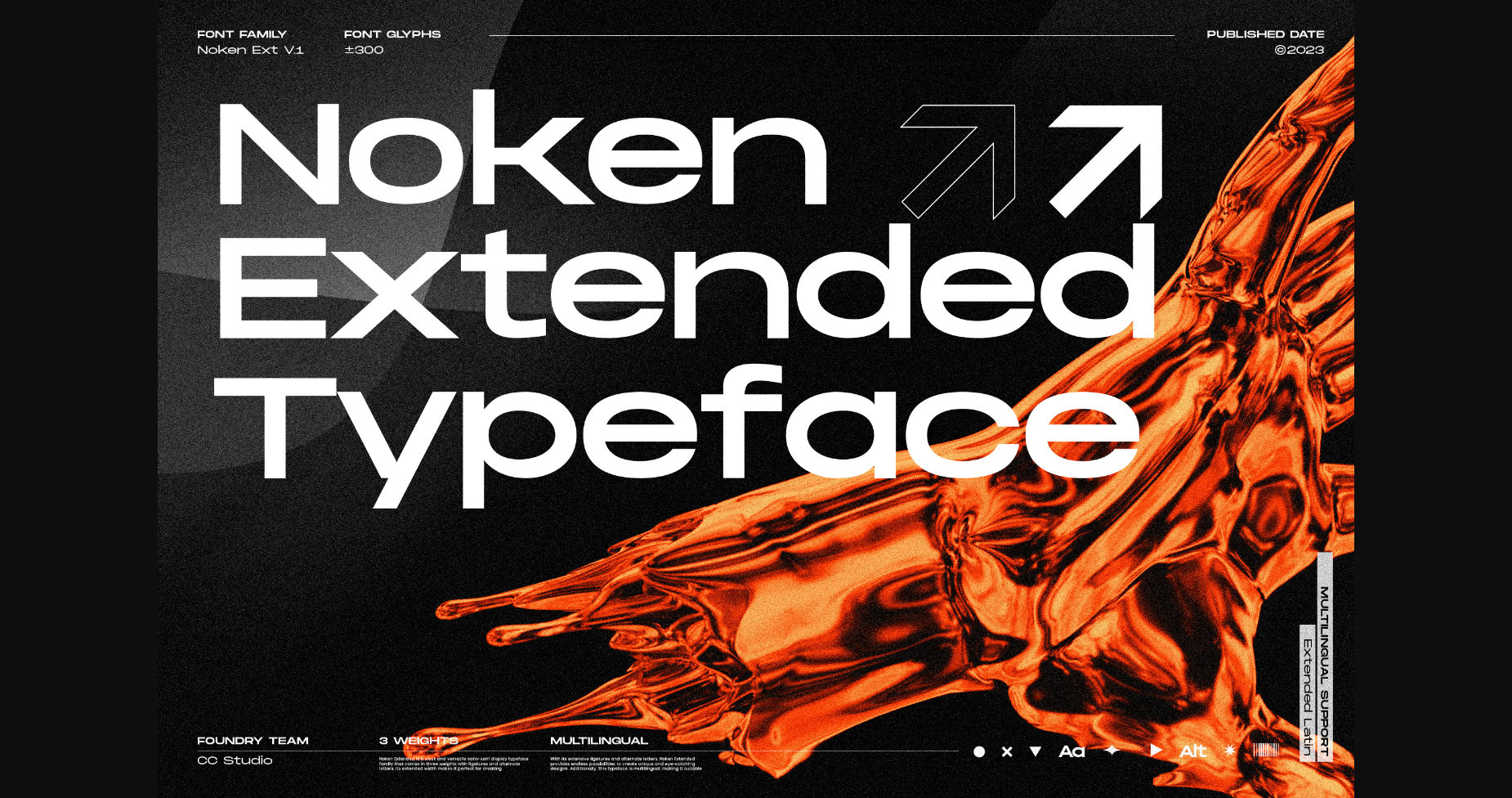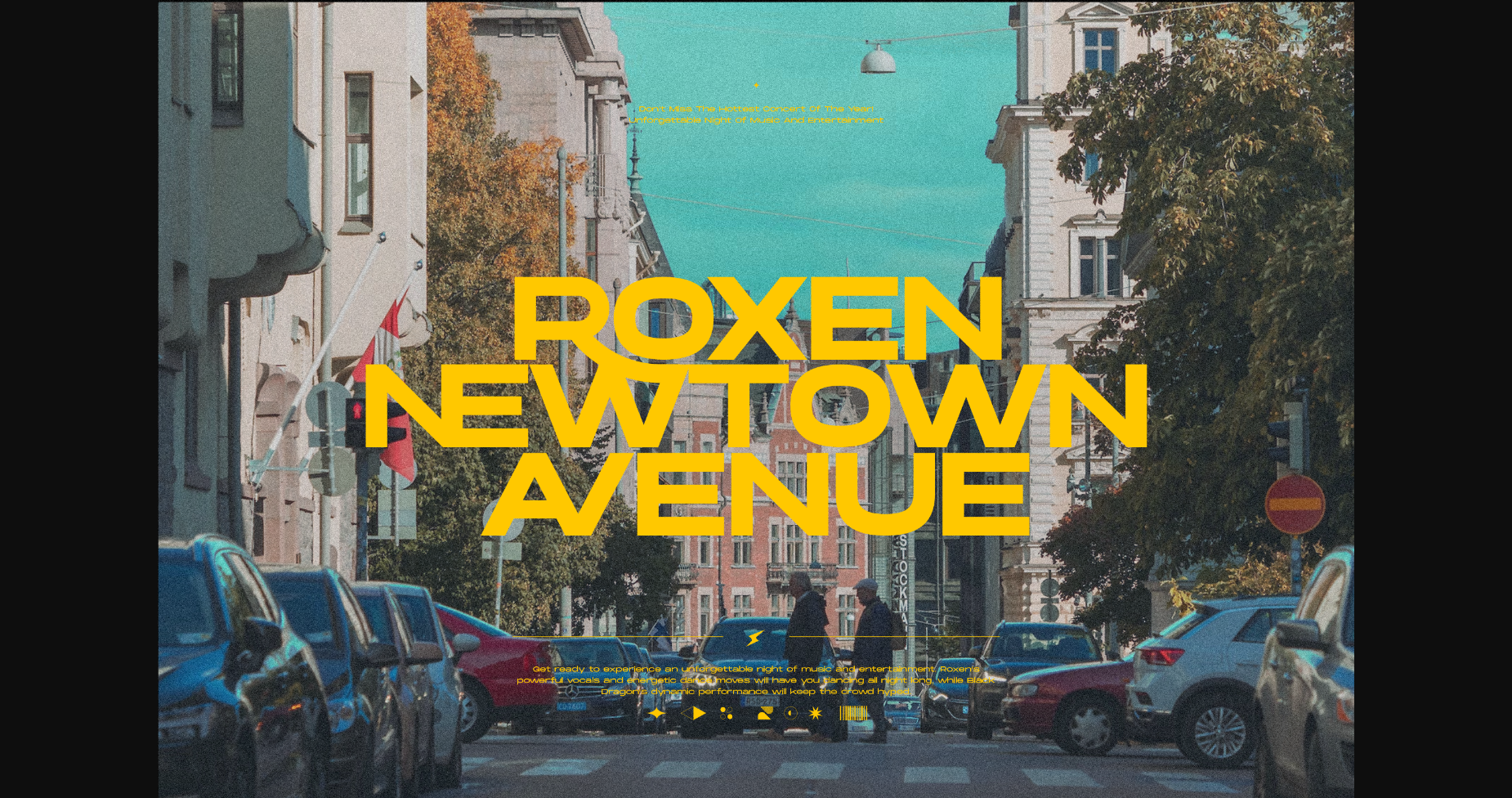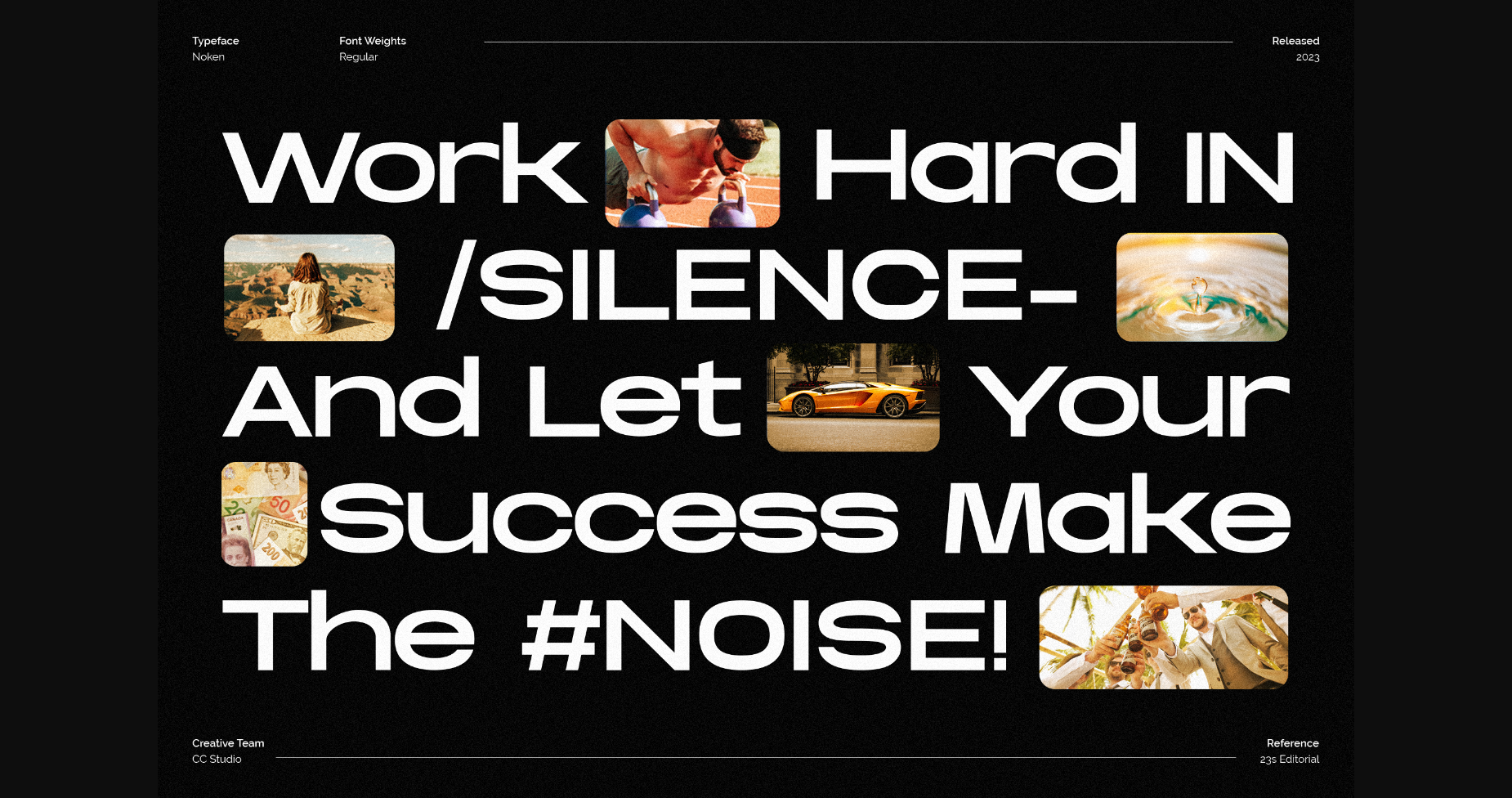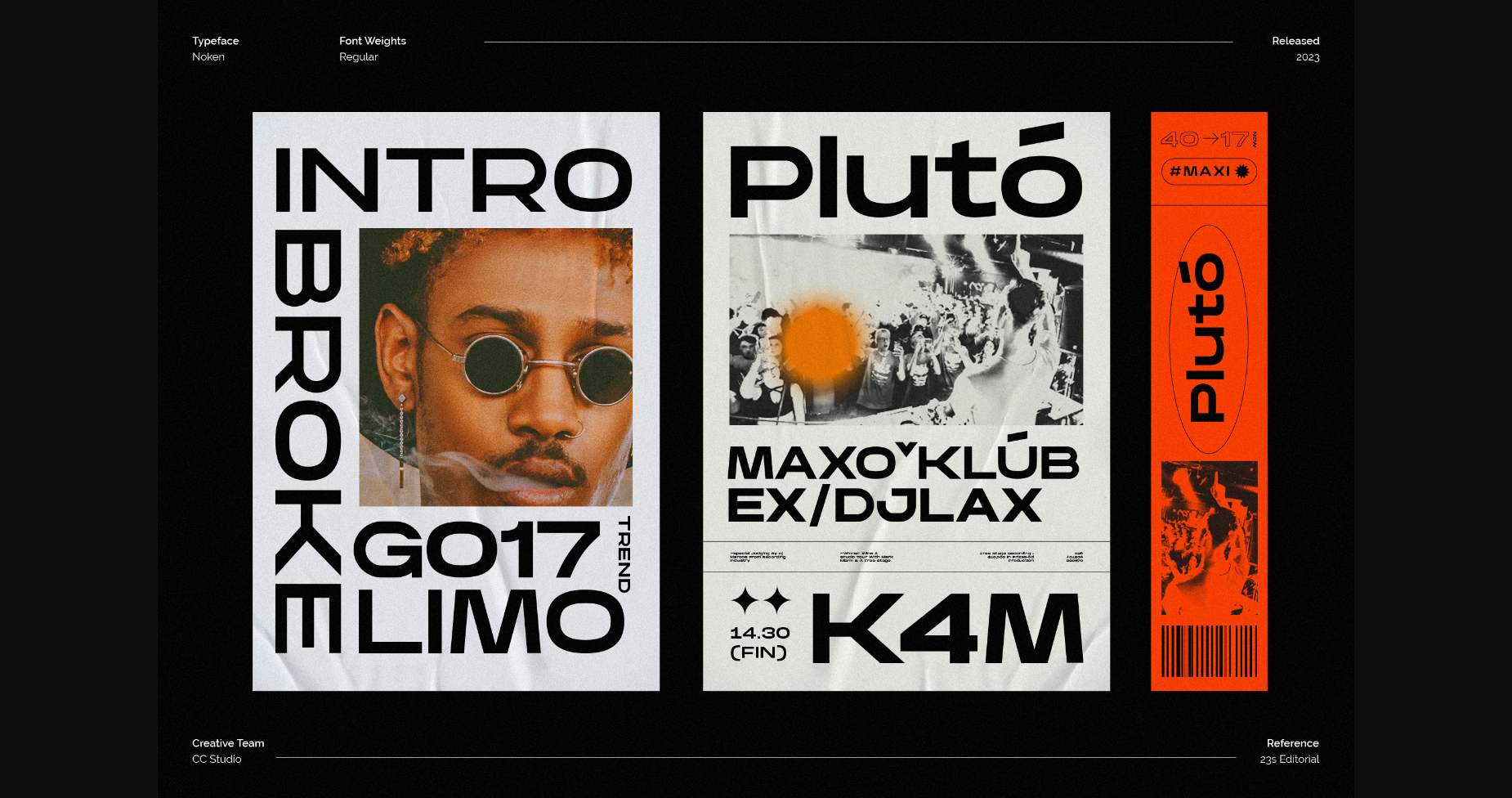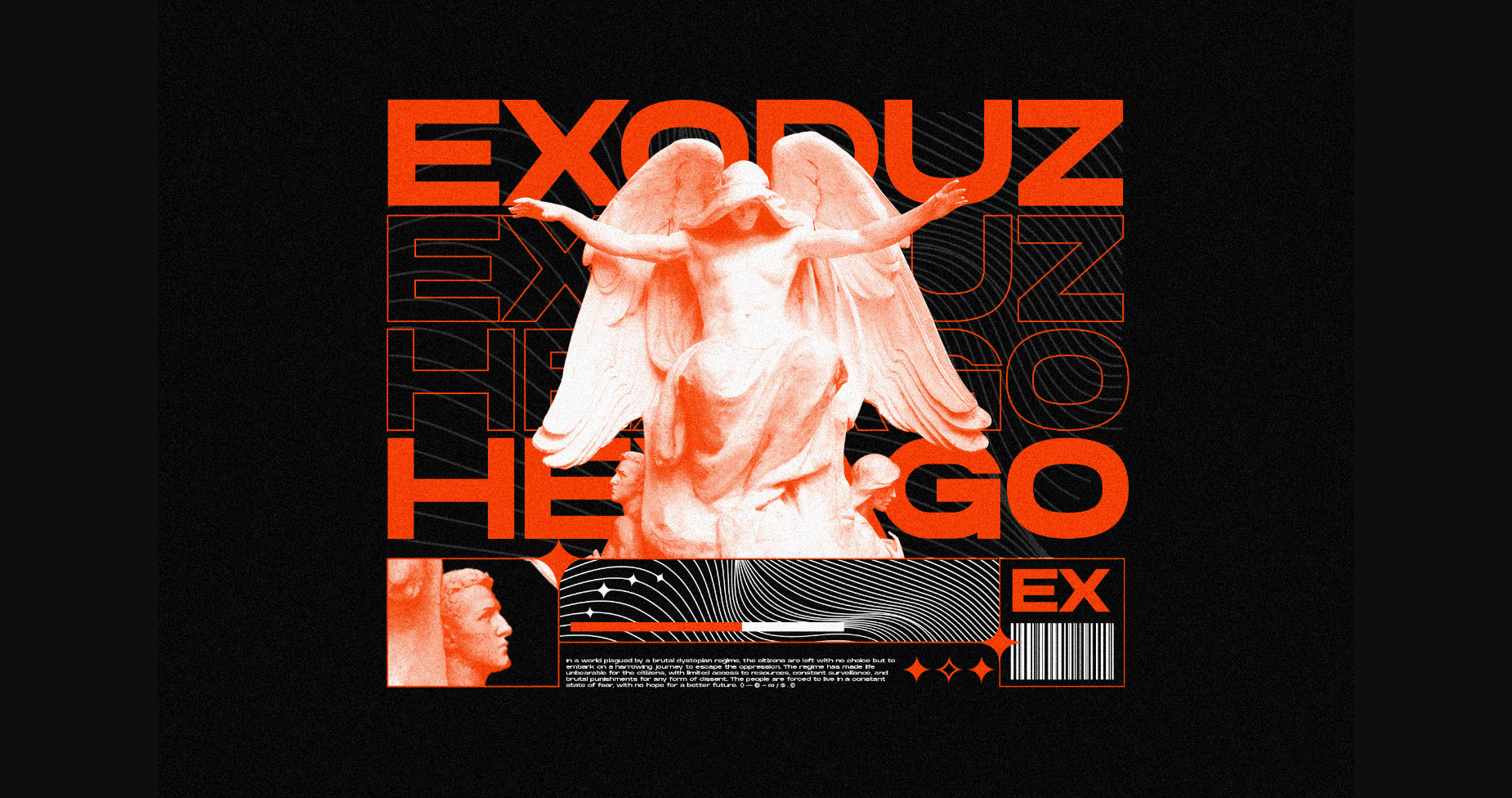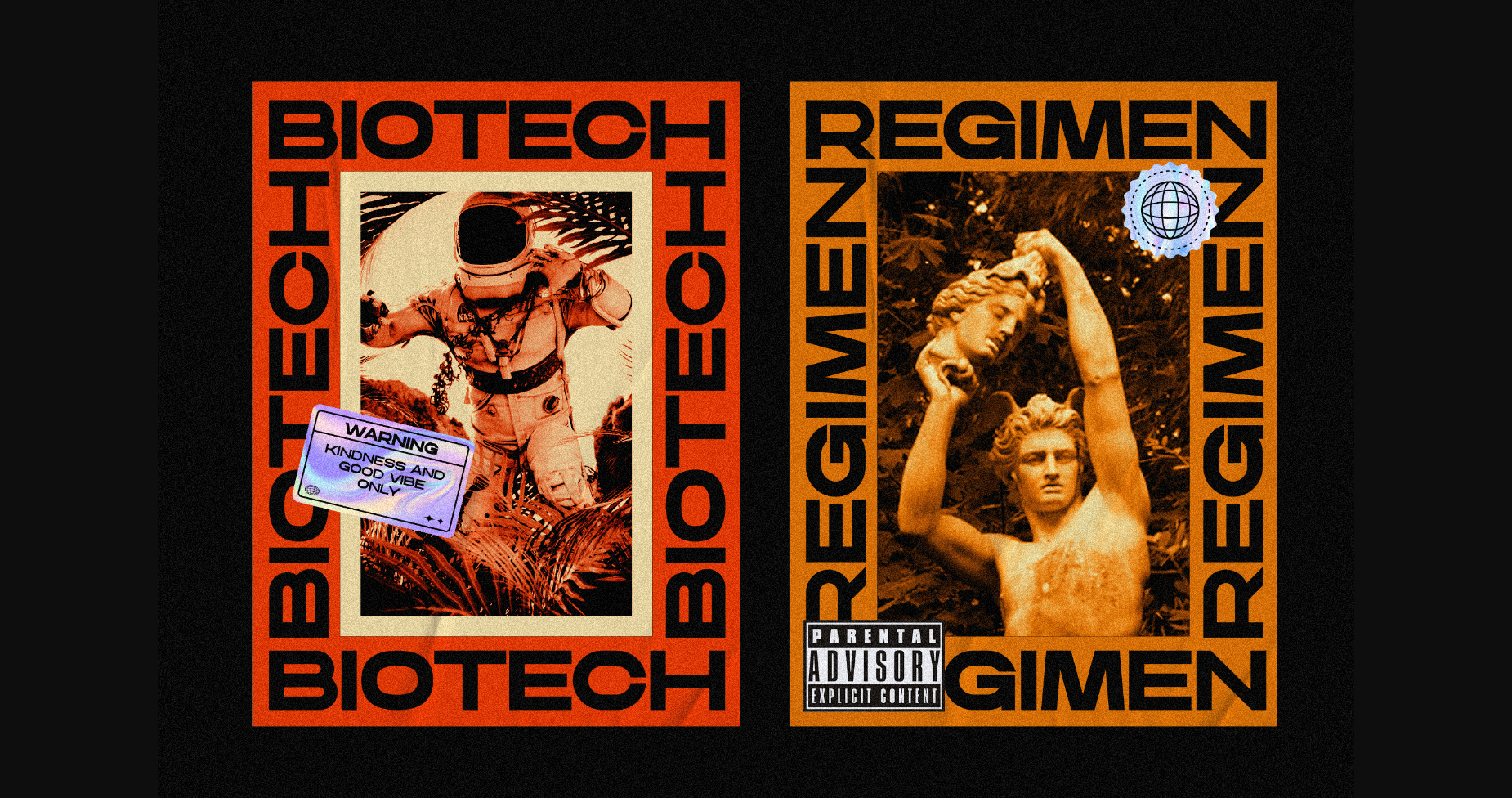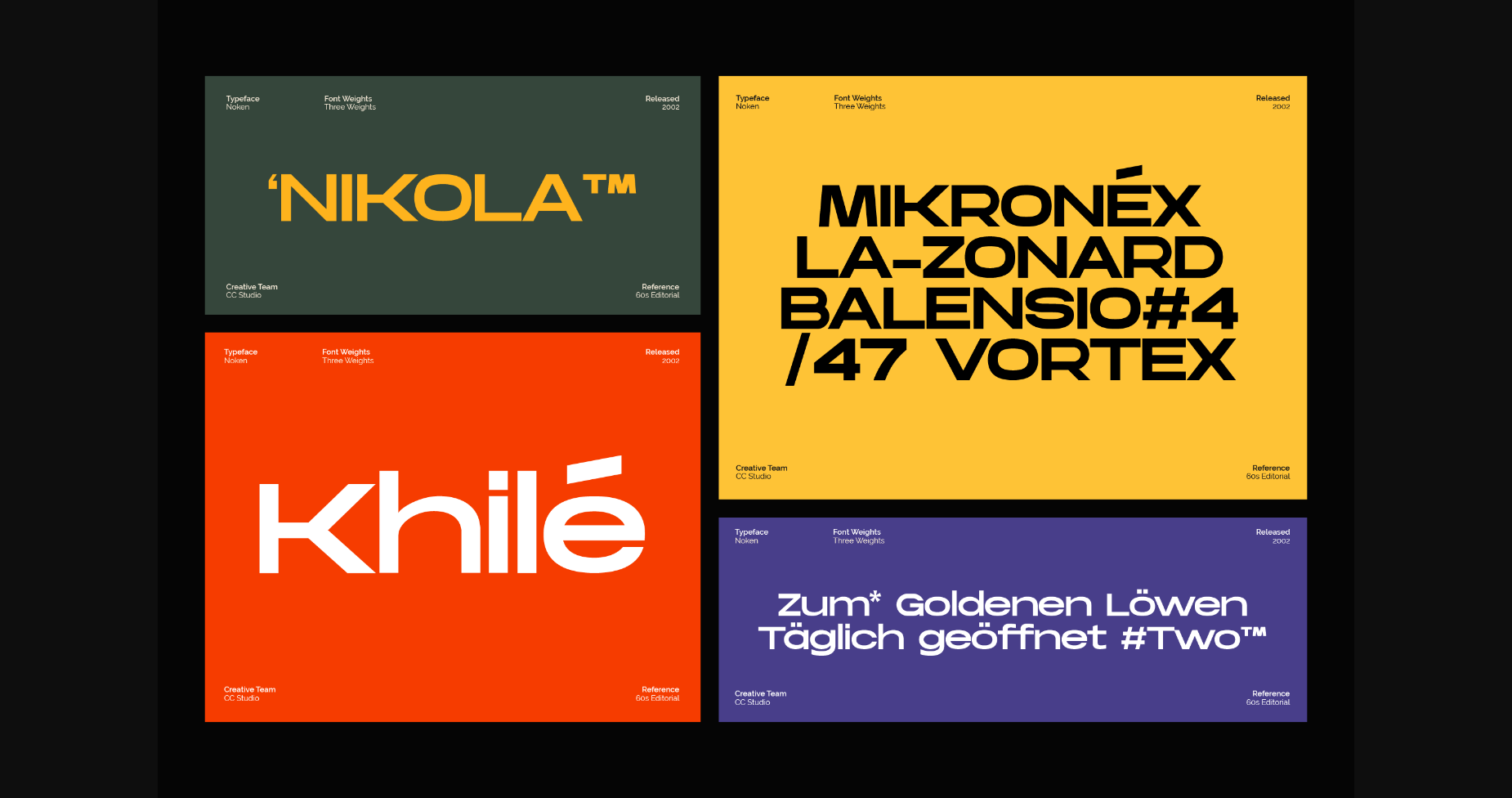
About Noken Extended Font
Noken Extended is a versatile and modern sans-serif font that is perfect for a wide range of design projects. Its clean and minimalistic letters with just the right amount of curves and angles create a sleek and professional look that is perfect for branding, web design, and print media. Flex adds a touch of modernity and flexibility to any project.